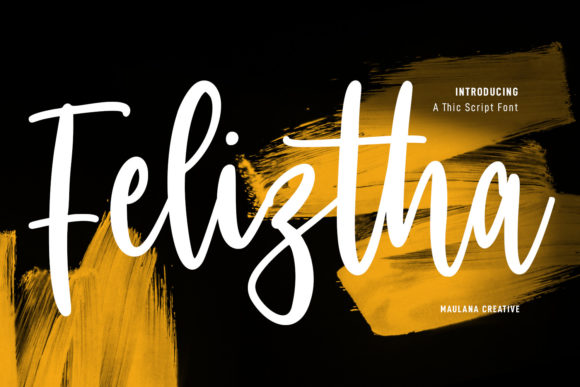
Feliztha Script: A Delicate Font That Elevates Design
Feliztha Script is a delicate and beautiful script font that has captured the attention of designers, creators, and professionals across various industries. With its elegant curves and refined strokes, this font brings a sense of grace and sophistication to any design it touches. Whether you're crafting a logo, designing a website, or creating marketing materials, Feliztha Script offers a unique blend of versatility and charm that can elevate your creative projects to new heights.
What Makes Feliztha Script Unique?
Feliztha Script stands out from other script fonts due to its balance between elegance and readability. Unlike some script fonts that can appear too ornate or difficult to read, Feliztha Script maintains a clean and approachable feel. This makes it suitable for both decorative and functional uses. The font's subtle variations in stroke weight and spacing contribute to its visual appeal without compromising clarity.
One of the key features of Feliztha Script is its ability to adapt to different design contexts. It works well in both digital and print formats, making it a valuable asset for graphic designers, web developers, and content creators. Its versatility allows it to be used in a wide range of applications, from branding materials to social media posts.
Key Features of Feliztha Script
- Elegant Style: Feliztha Script boasts a graceful and flowing style that adds a touch of sophistication to any design.
- High Readability: Despite its script nature, the font remains highly readable, ensuring that messages are clearly conveyed.
- Versatile Use: It can be used in various design contexts, including logos, headlines, invitations, and more.
- Consistent Quality: The font maintains a consistent look and feel across different sizes and mediums.
Who Can Benefit from Using Feliztha Script?
Feliztha Script is ideal for a wide range of users, including but not limited to:
- Graphic Designers: They can use Feliztha Script to create visually appealing logos, posters, and advertisements.
- Web Developers: Incorporating this font into websites can enhance the aesthetic appeal and user experience.
- Content Creators: Bloggers, YouTubers, and social media influencers can use it to make their titles and captions more engaging.
- Business Owners: It can be used for branding purposes, such as creating business cards, packaging, and promotional materials.
- Students and Educators: Teachers can use it to make presentations more visually interesting, while students can use it for creative projects and assignments.
Real-World Applications of Feliztha Script
The beauty of Feliztha Script lies in its ability to be applied in numerous real-world scenarios. Here are a few examples:
- Wedding Invitations: Feliztha Script can add a romantic and elegant touch to wedding invitations, making them stand out from traditional designs.
- Brand Logos: Many businesses choose script fonts for their logos to convey a sense of creativity and individuality. Feliztha Script is an excellent choice for this purpose.
- Social Media Posts: Using Feliztha Script in social media captions or headers can help catch the attention of followers and increase engagement.
- Magazine Covers: The font's elegance makes it a great fit for magazine covers, especially those focused on fashion, lifestyle, or art.
Strengths and Considerations When Using Feliztha Script
While Feliztha Script has many strengths, it's important to consider a few factors before using it in your projects. One of its main advantages is its ability to convey emotion and personality. The soft curves and flowing lines of the font can evoke feelings of warmth and approachability, which can be particularly useful in branding and marketing efforts.
However, there are also some considerations to keep in mind. Since it is a script font, it may not be the best choice for long blocks of text. In such cases, pairing it with a sans-serif or serif font for body text would be more effective. Additionally, when using Feliztha Script in digital formats, it's essential to ensure that the font is properly embedded or linked so that it displays correctly across all devices and platforms.
Practical Tips for Using Feliztha Script
To get the most out of Feliztha Script, here are a few practical tips:
- Use It Sparingly: Since it's a decorative font, it's best to use it for headings, titles, or short phrases rather than large amounts of text.
- Pair It with Complementary Fonts: Combining Feliztha Script with a more legible font can enhance the overall design and improve readability.
- Experiment with Sizes and Weights: Try different sizes and weights to see how they affect the visual impact of your design.
- Test Across Devices: Make sure the font looks good on different screen sizes and resolutions to ensure consistency across all platforms.
Feliztha Script is more than just a font; it's a versatile and elegant design element that can enhance the visual appeal of your projects. Whether you're a professional designer or a casual creator, incorporating this font into your work can bring a unique and sophisticated touch to your designs. As you explore the possibilities of Feliztha Script, remember to experiment, test, and refine your choices to achieve the best results. With its delicate beauty and wide range of applications, Feliztha Script is sure to become a favorite among creatives everywhere.